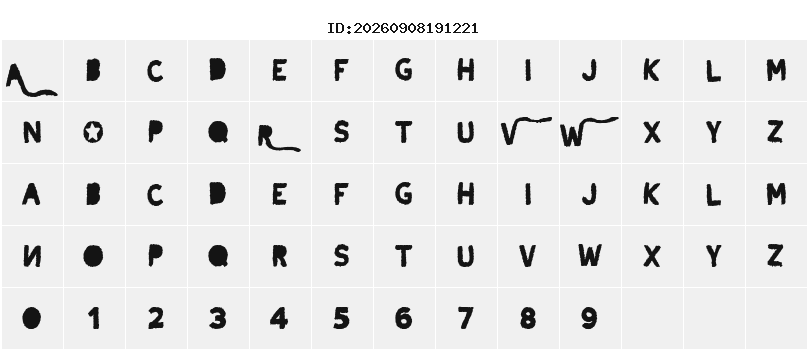
• Font Name: Volga
• Full Font Name: Volga
• Designer: Frédéric Rich
• Manufacturer: Frédéric Rich
About Volga.ttf
Volga.ttf is a modern, elegant sans-serif font designed for ultimate readability and visual harmony. Perfect for branding, headlines, web design, and print materials.